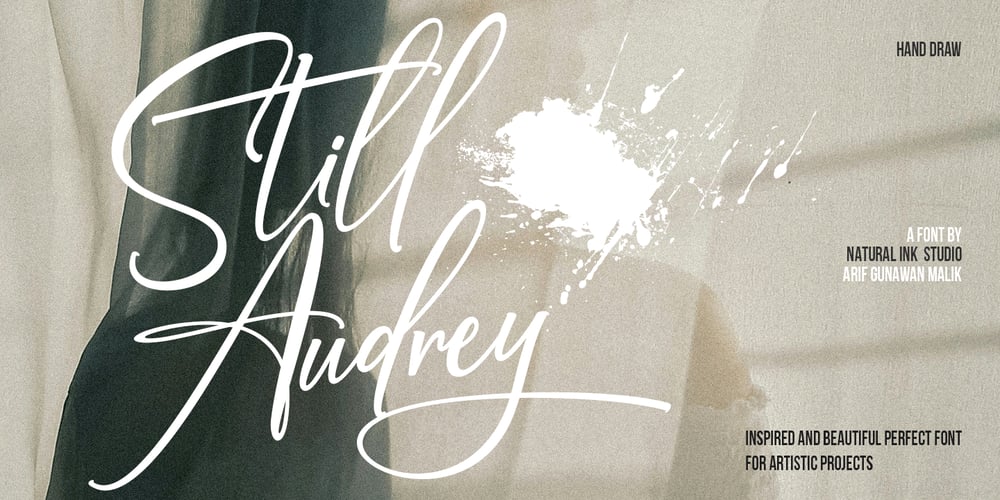
Still Audrey
Still Audrey font
Still Audrey Font Family was designed by Arif Gunawan and published by Natural Ink. Still Audrey contains 1 styles and family package options. Still Audrey Signature is a natural handwritten font, this font Is perfect for logos, invitations, stationery, wedding designs, social media posts, advertisements, product packaging, product designs, label, photography, watermark, special events, or anything.Still Audrey Signature comes with a full set of uppercase and lowercase letters, lowercase swashes, multilingual symbols, numerals, punctuation.If you have any questions please don’t hesitate to drop me a message..Thank You!